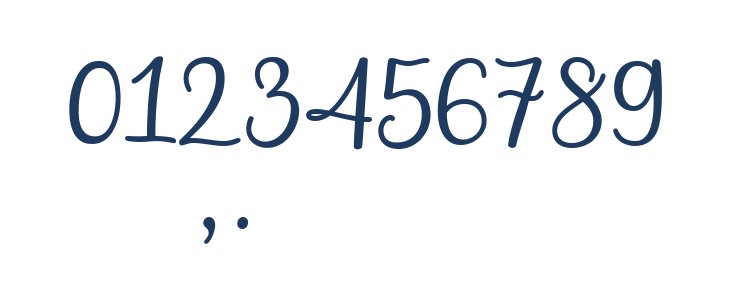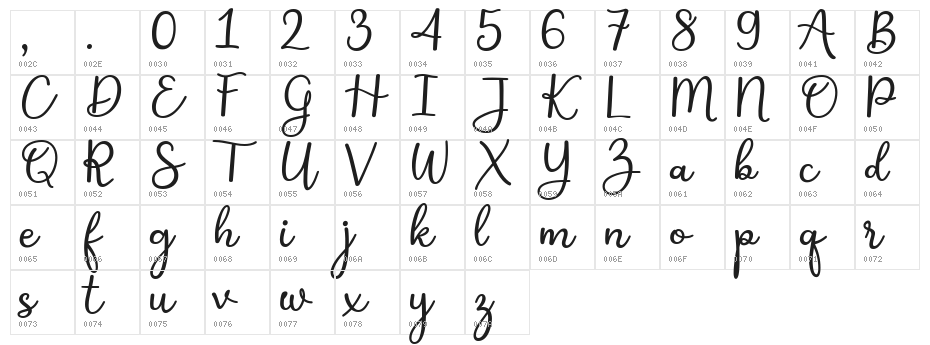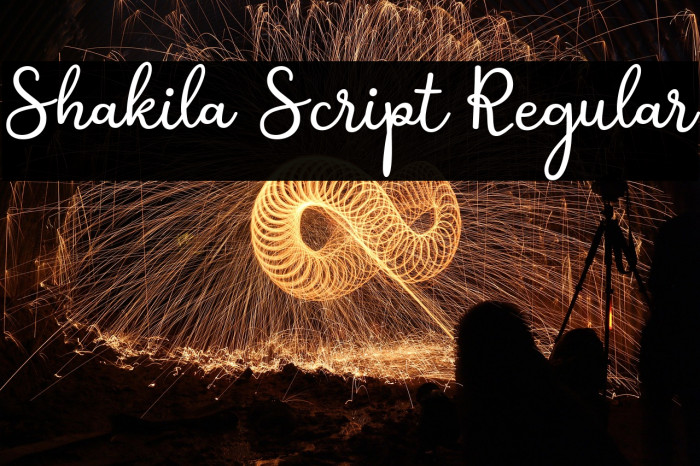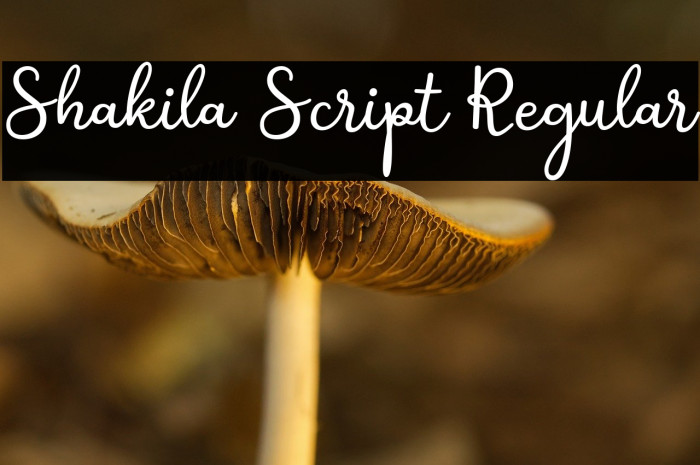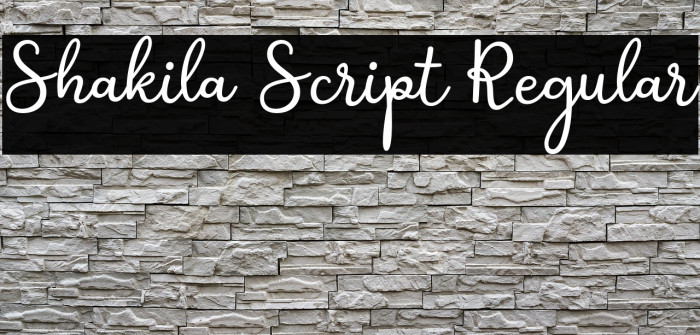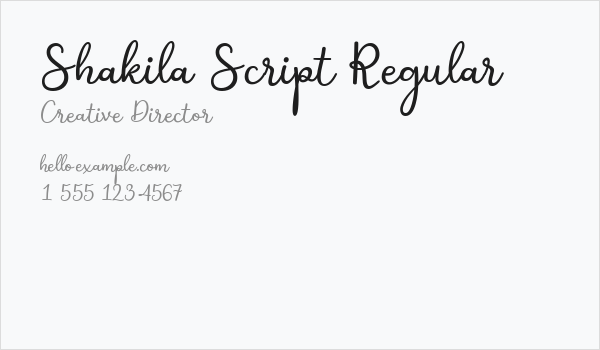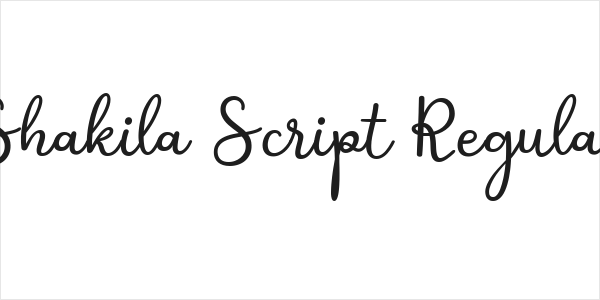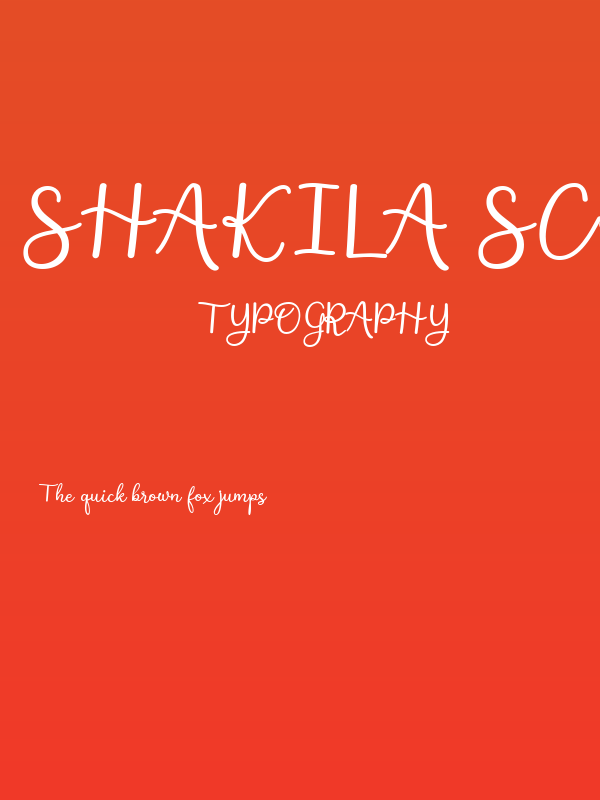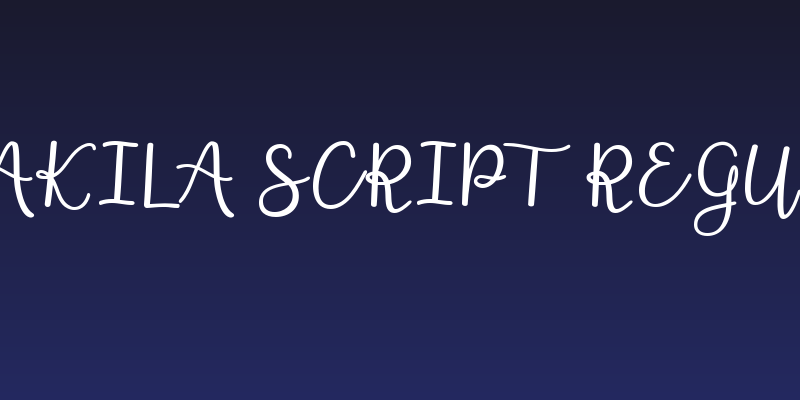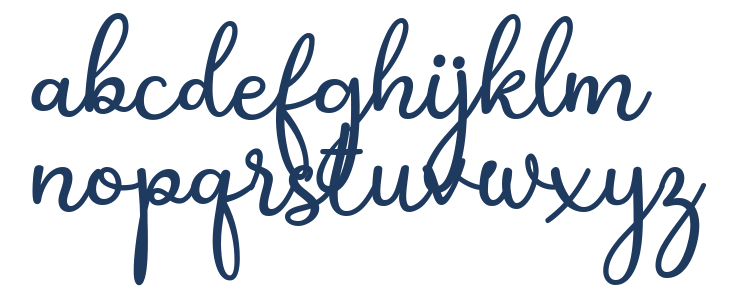
Shakila Script Regular Font
Shakila Script Regular Description
This font features a charming and fluid script style that exudes elegance and sophistication. The uppercase letters are gracefully connected, while the lowercase letters flow seamlessly, creating a harmonious and cohesive look. The numerals and special characters maintain the same fluidity, ensuring consistency across all text elements. The font's design is both playful and refined, making it suitable for a variety of creative applications. Its smooth curves and balanced proportions contribute to its legibility, even at smaller sizes. The overall aesthetic is both modern and timeless, offering versatility for numerous design projects.